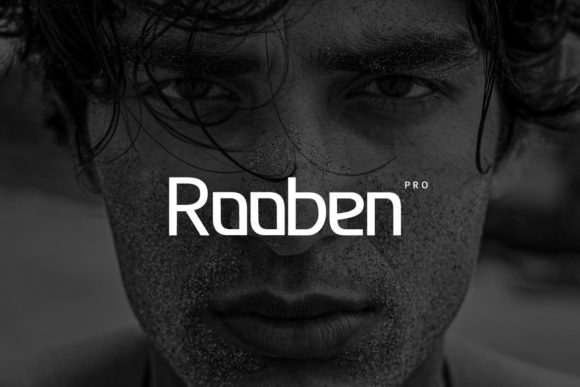
Introducing Rooben Font, the Sans Serif Masterpiece That Will Transform Your Digital Creations!
Rooben Font, hailing from the creative minds at BeeType, is a typographic dream come true, a font family that effortlessly blends simplicity, modernity, and captivating charm. Its sans serif design exudes a clean, crisp, and versatile personality, making it the perfect choice for a wide range of design projects.
Rooben's understated elegance shines through in any context, whether you're crafting captivating headlines, designing sleek logos, or creating informative notes. Its carefully crafted letterforms, with their sharp edges and generous curves, offer a visual harmony that commands attention without overpowering your content.
Immerse yourself in the world of Rooben and discover a font that's both aesthetically pleasing and remarkably functional. Its clean lines ensure effortless readability, even in small sizes, making it an ideal choice for websites, presentations, and mobile applications.
Unleash your creativity and explore the endless possibilities with Rooben. Its versatility extends to a wide spectrum of design genres, from minimalist and contemporary to classic and timeless. Whether you're designing marketing materials, social media graphics, or personal projects, Rooben will elevate your work to new heights of sophistication.
Step into the realm of Rooben, a font family that not only enhances the visual appeal of your projects but also resonates with your audience on a deeper level. Its understated charm and sophisticated demeanor add a touch of elegance to any design, leaving a lasting impression that speaks volumes about your attention to detail and commitment to excellence.